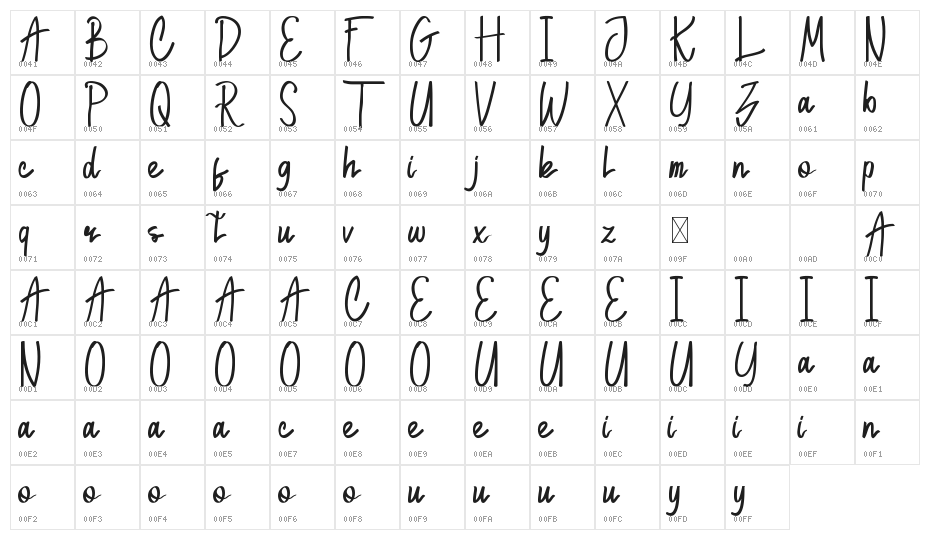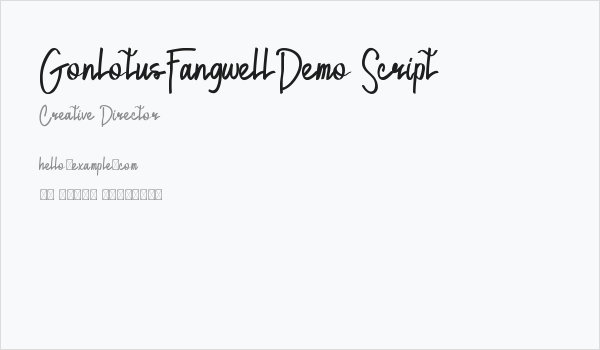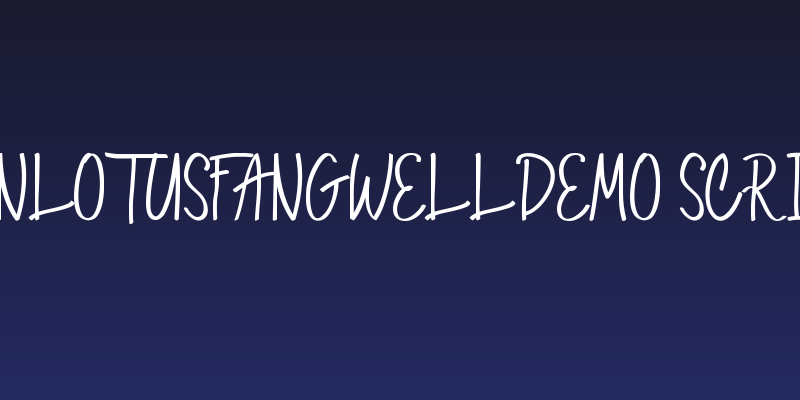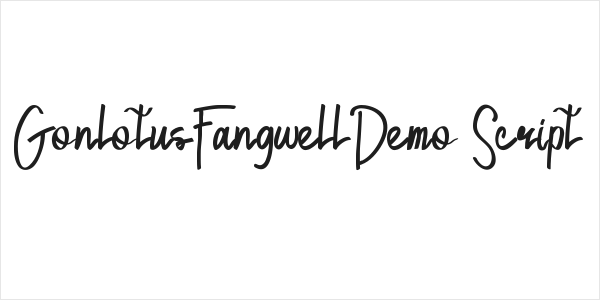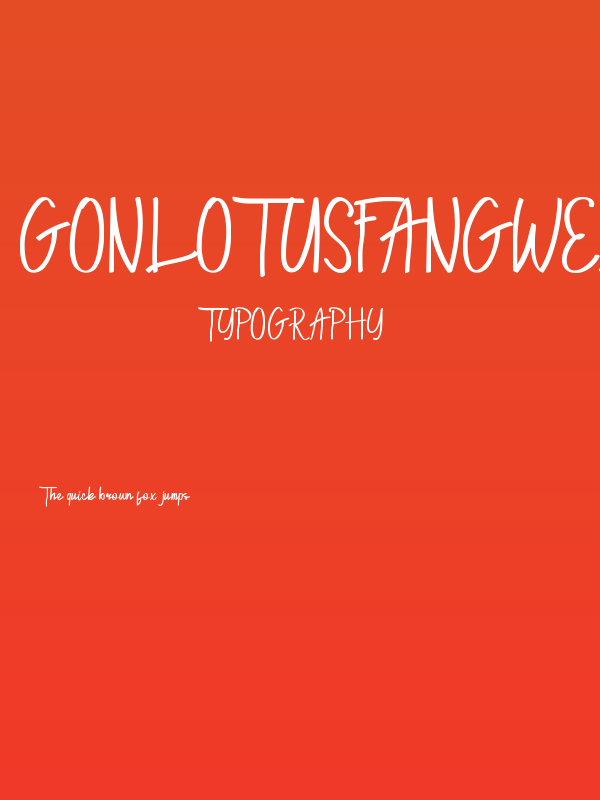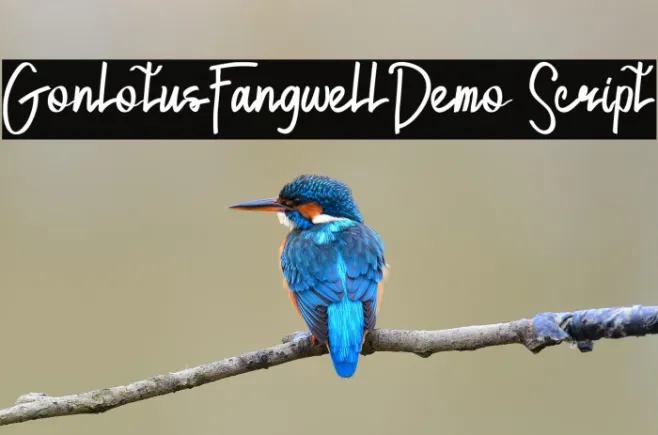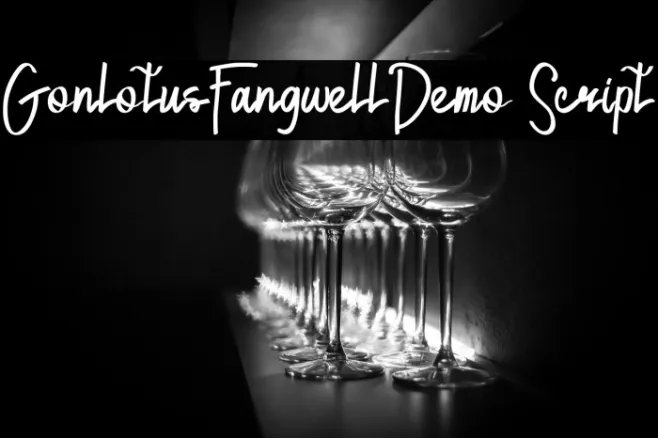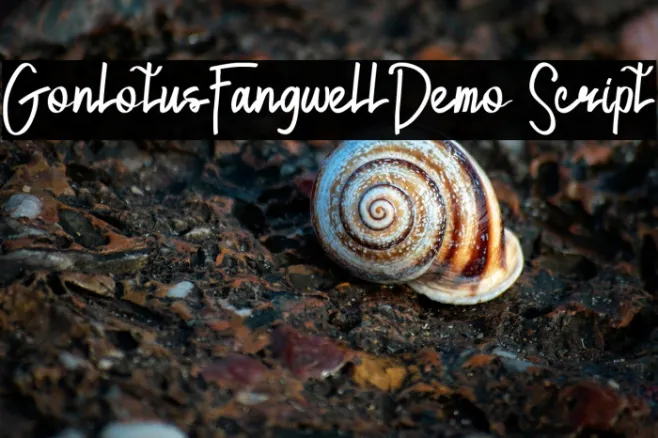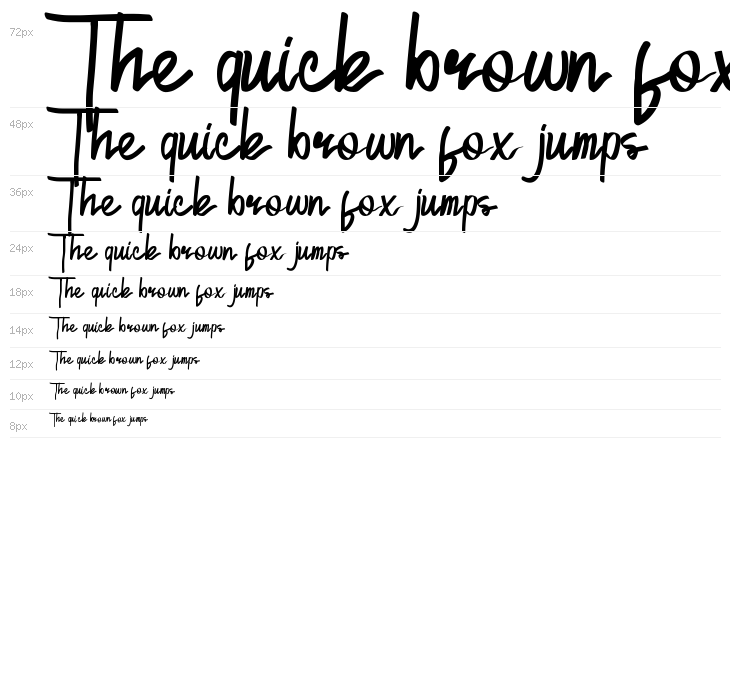
GonlotusFangwellDemo Script Font
GonlotusFangwellDemo Script Description
This font features a lively and expressive script style, characterized by its fluid and dynamic letterforms. The uppercase letters are tall and slender, with a slight slant that adds a sense of motion and elegance. The lowercase letters are more compact, with playful loops and curves that give the font a whimsical touch. The overall design is informal yet sophisticated, making it suitable for creative and artistic projects. The font maintains a consistent stroke width, providing a balanced and harmonious appearance. Its unique character shapes and flowing connections between letters make it ideal for capturing attention and conveying a sense of creativity and flair.
| Proposed Projects | Ideal for invitations, greeting cards, branding, and artistic projects. |